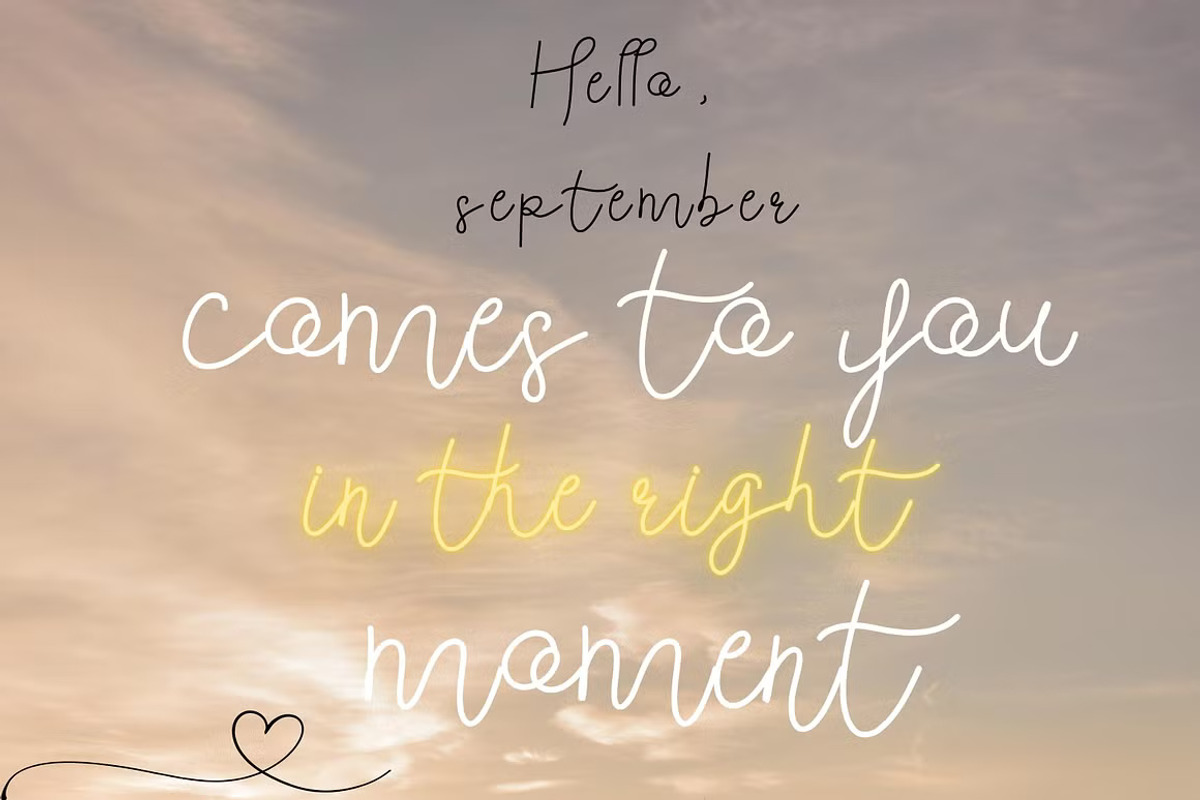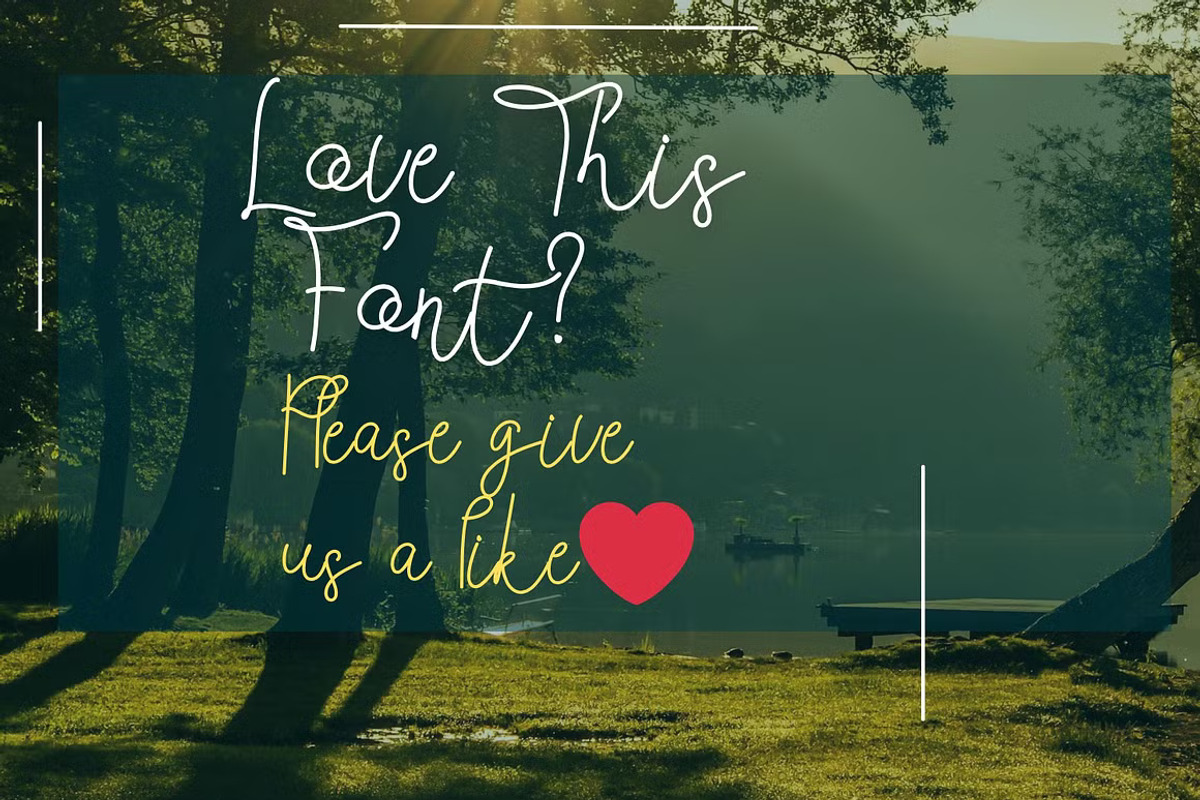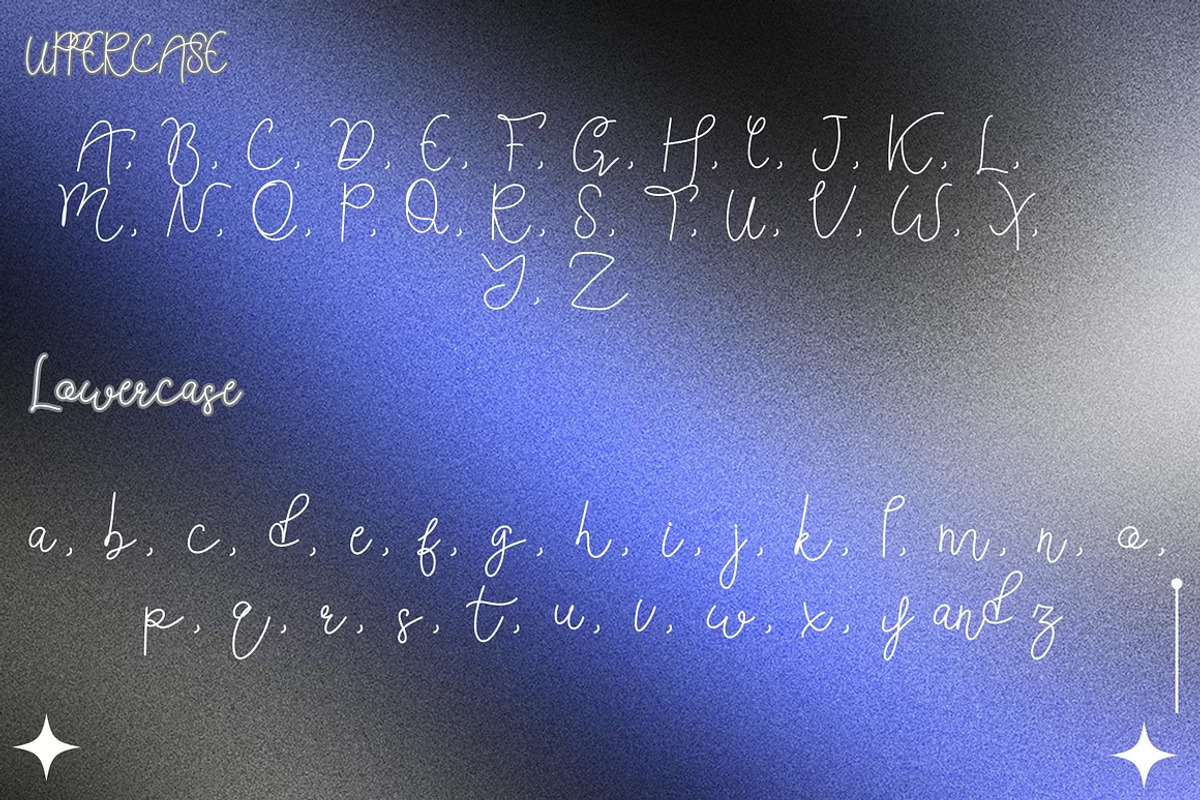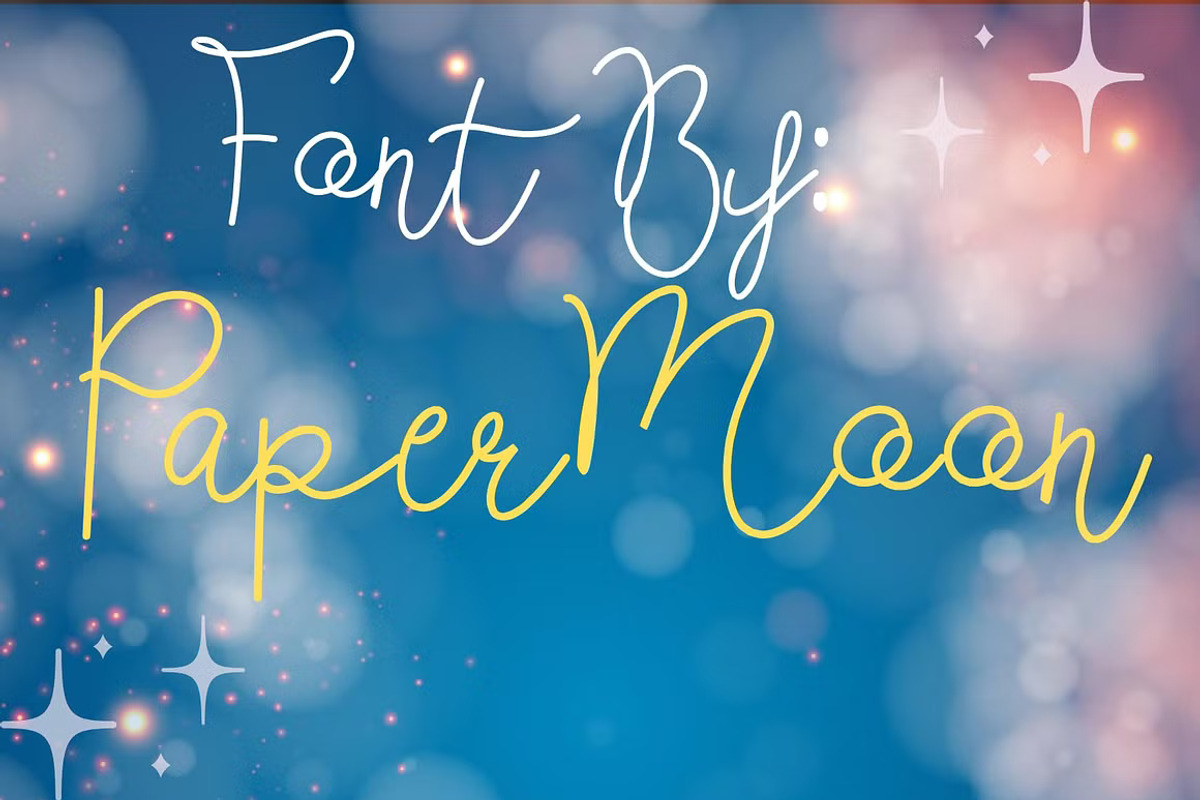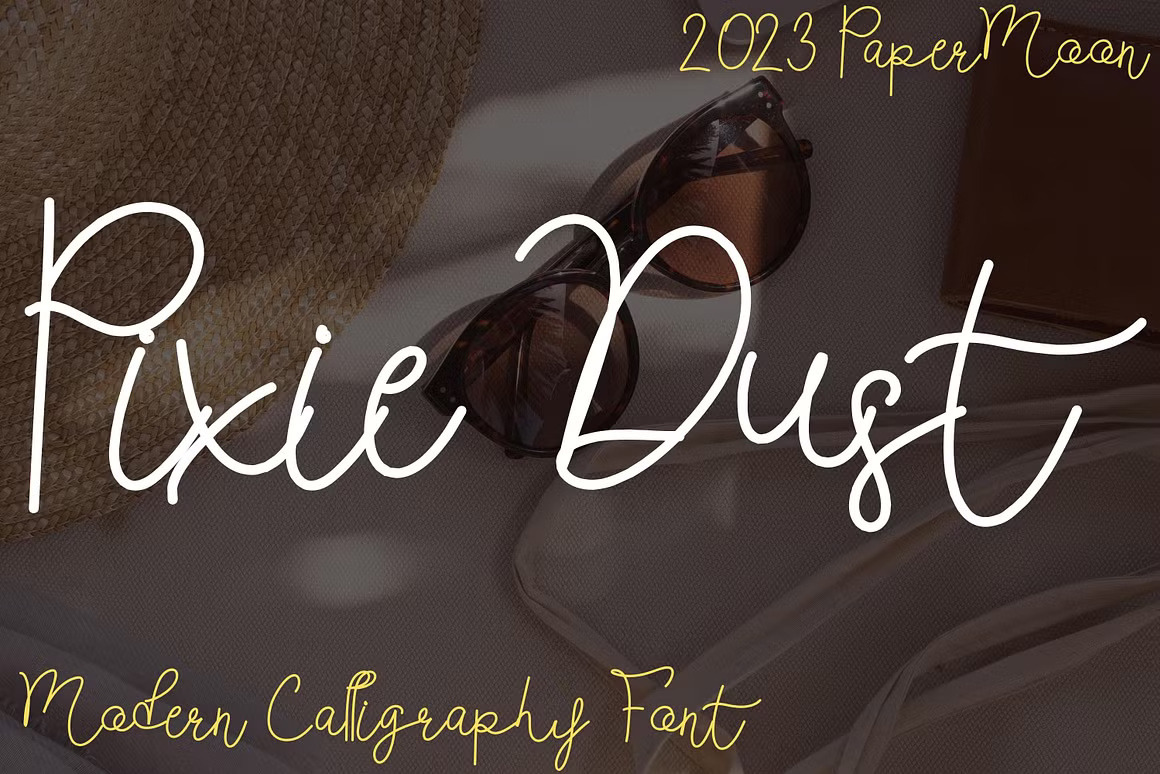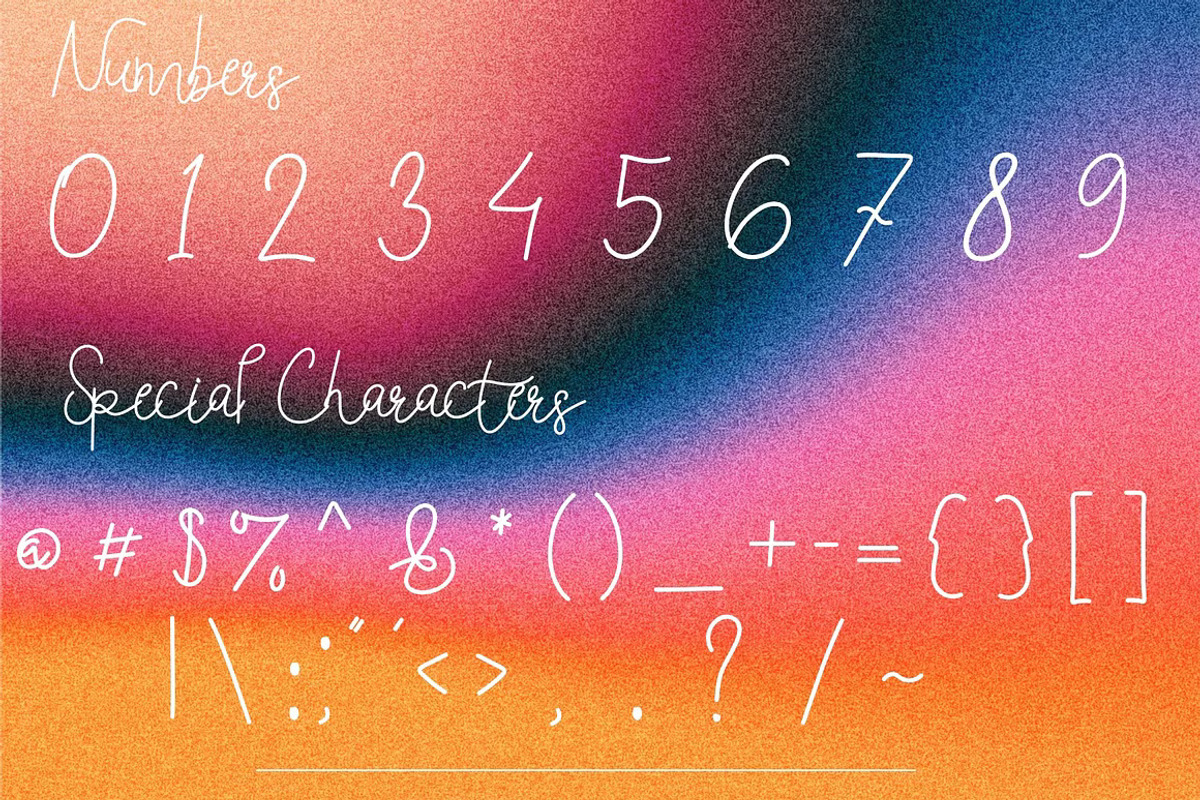
Pixie Dust: Handwriting Font
Introducing Pixie Dust Font: A Graceful Handwriting Script with Vintage Elegance
Pixie Dust is a meticulously crafted handwriting script font from our talented creative studio. This exclusive script font features a beautiful monoline style, offering a captivating character set with perfectly spaced and kerned letters. With its elegant, vintage, and stylish pen brush calligraphy, Pixie Dust Font brings a sophisticated and classic touch to any design project, making it a truly unique and distinctive choice.
Whether you’re working on branding, logos, stationery, business cards, signage, flyers, or brochures, Pixie Dust Font is the ideal fit. It effortlessly harmonizes with various industries, including weddings, events, real estate, architecture, law firms, floristry, gardening, makeup artistry, travel, hotels, and the music industry.